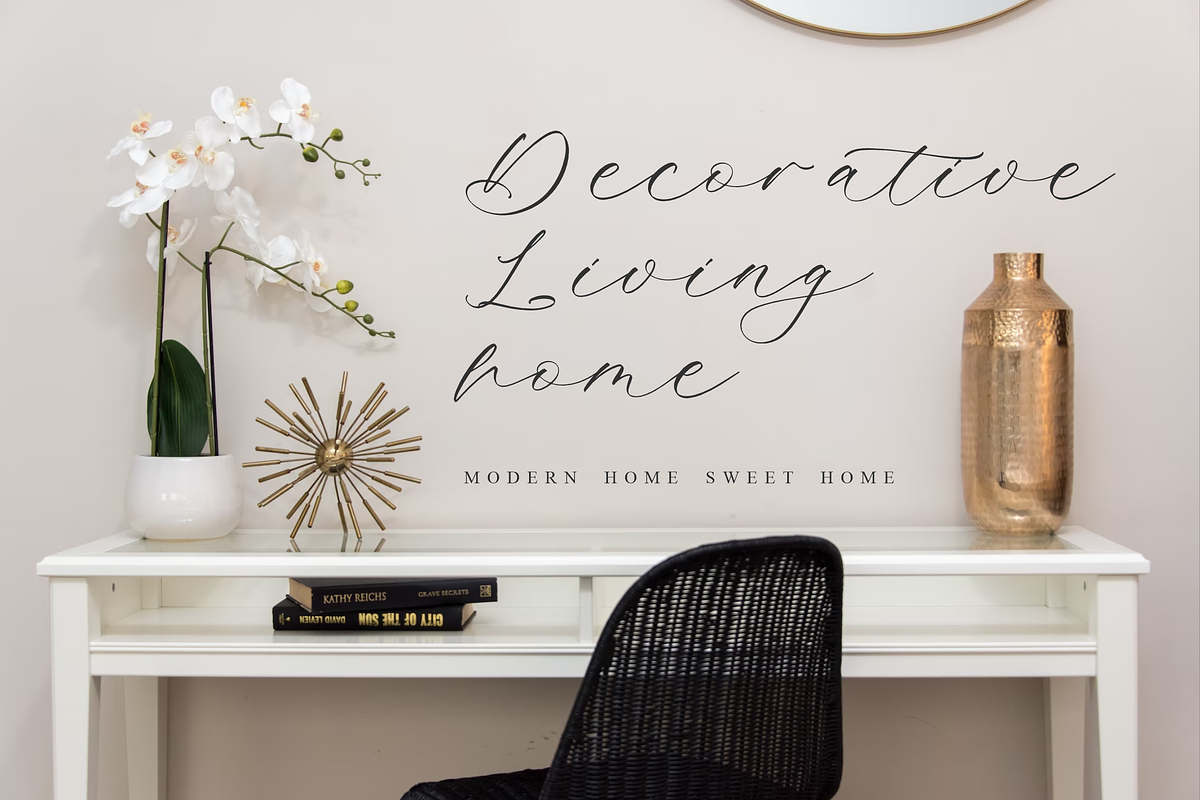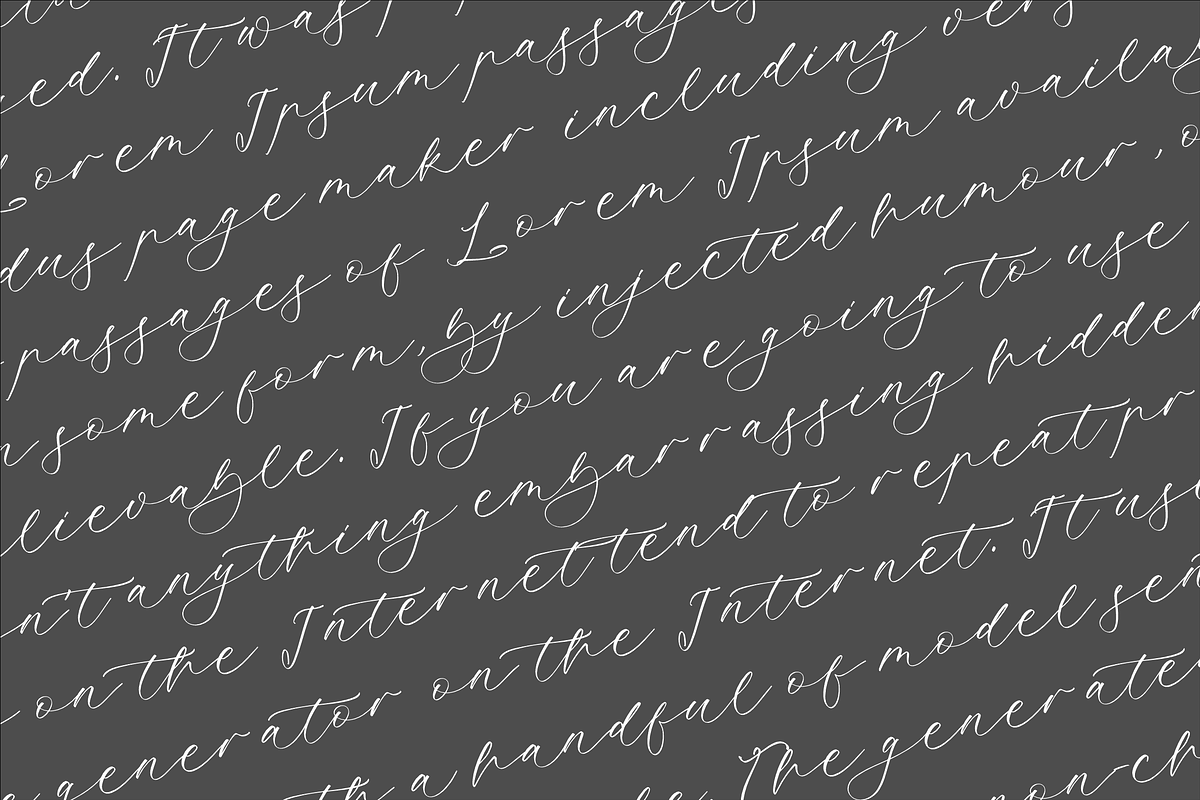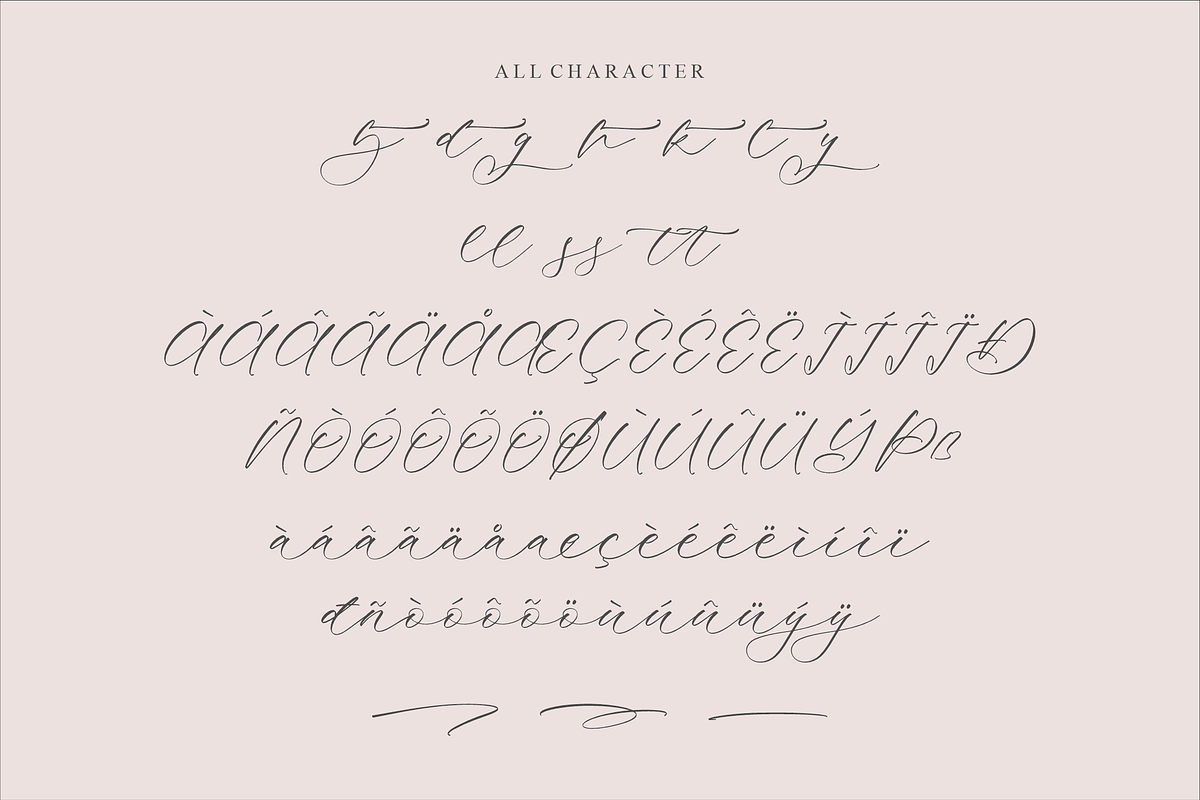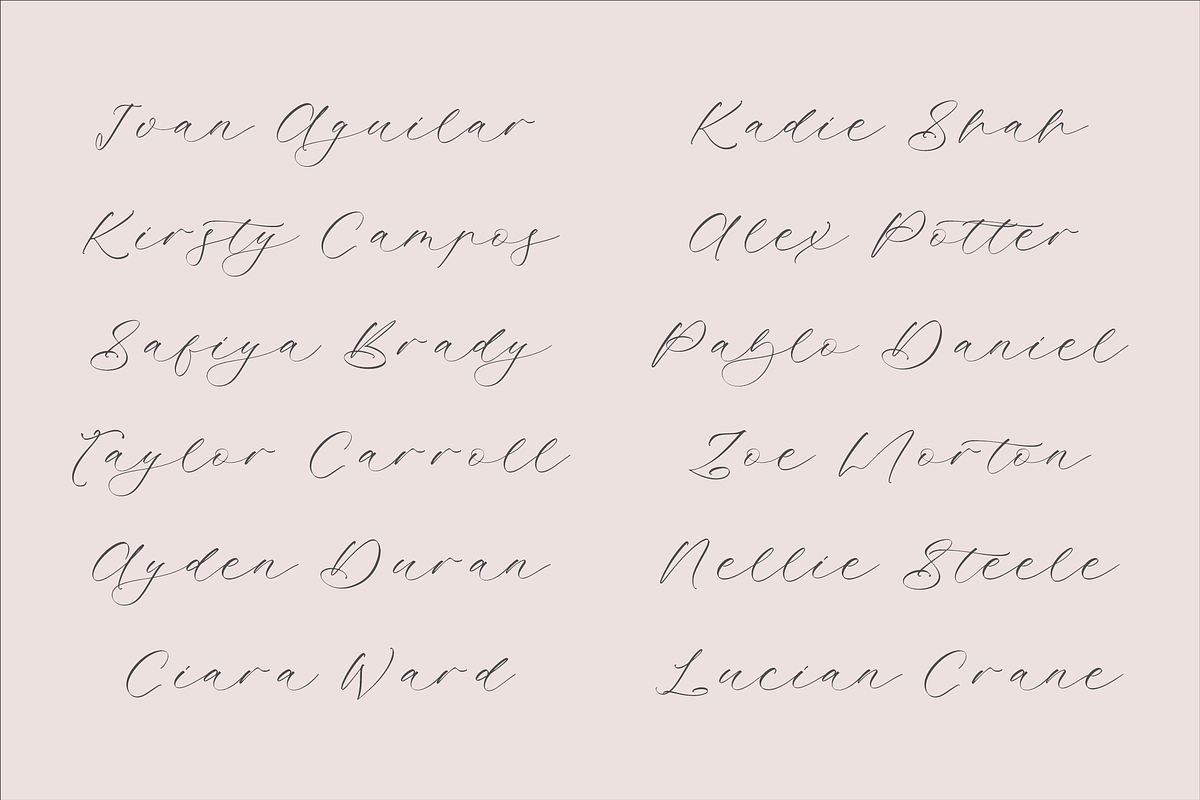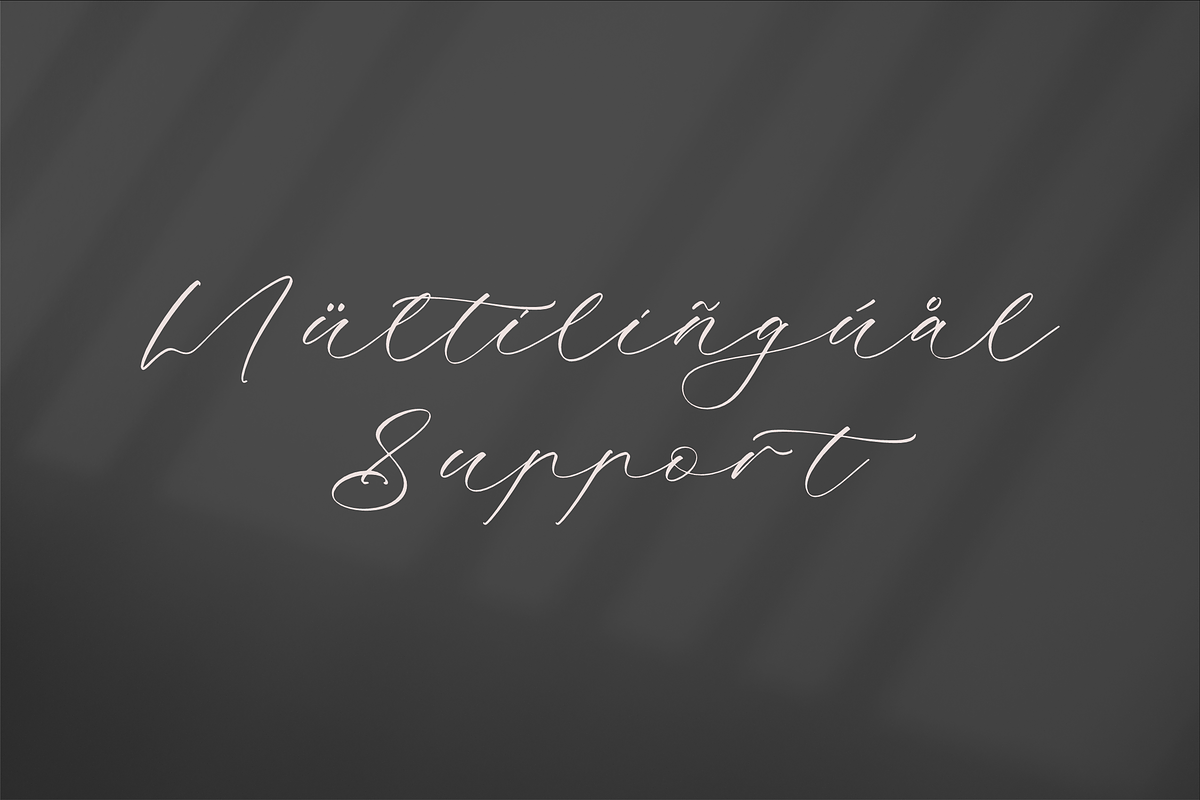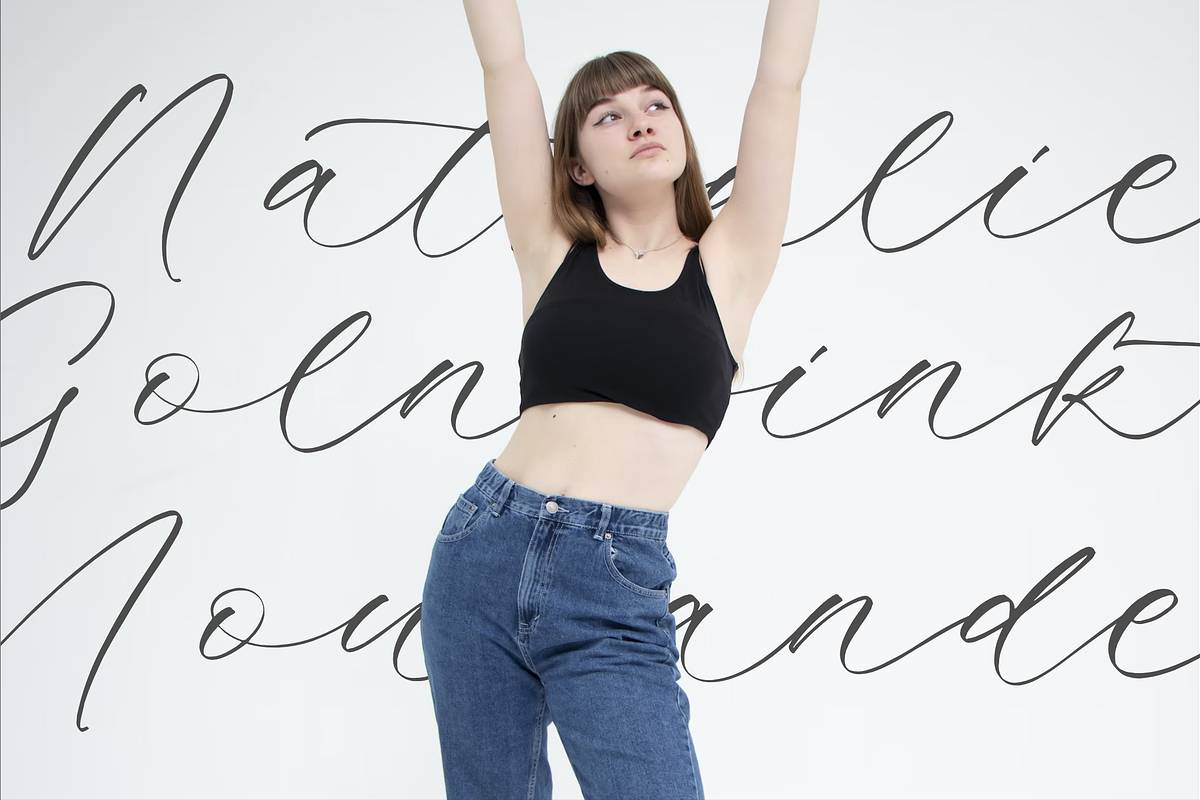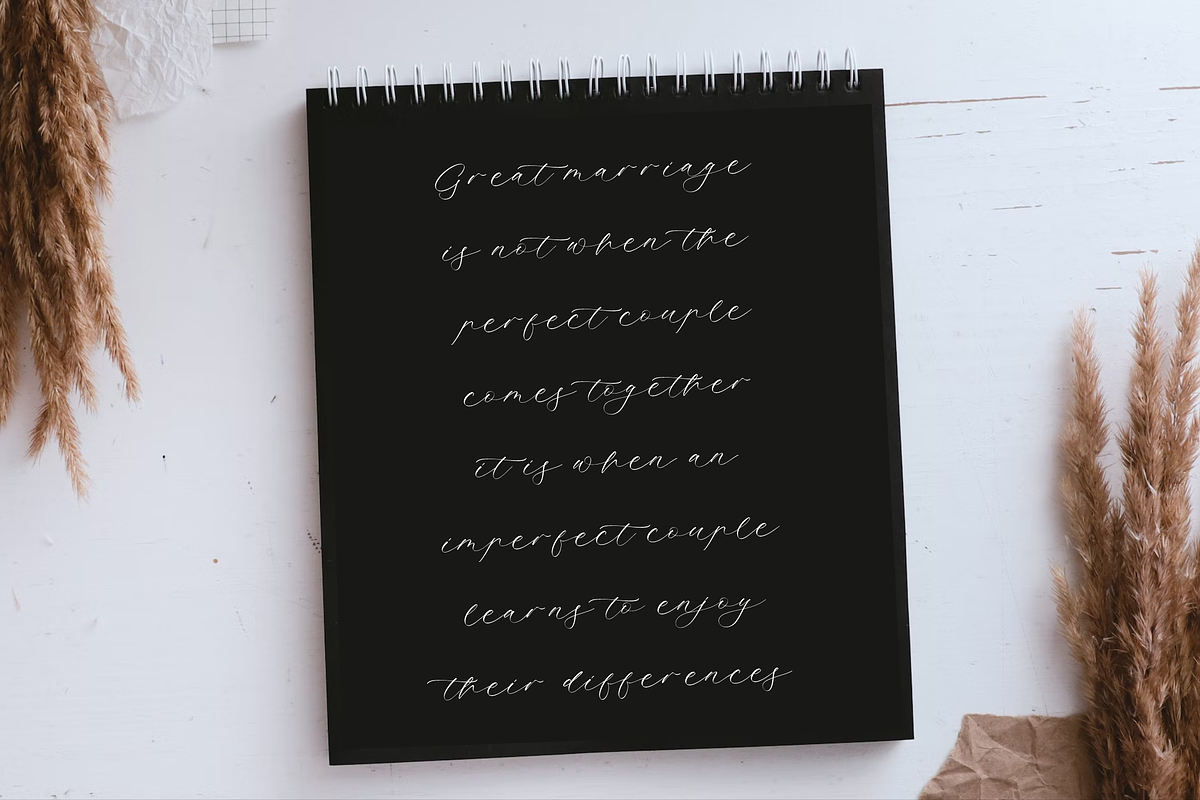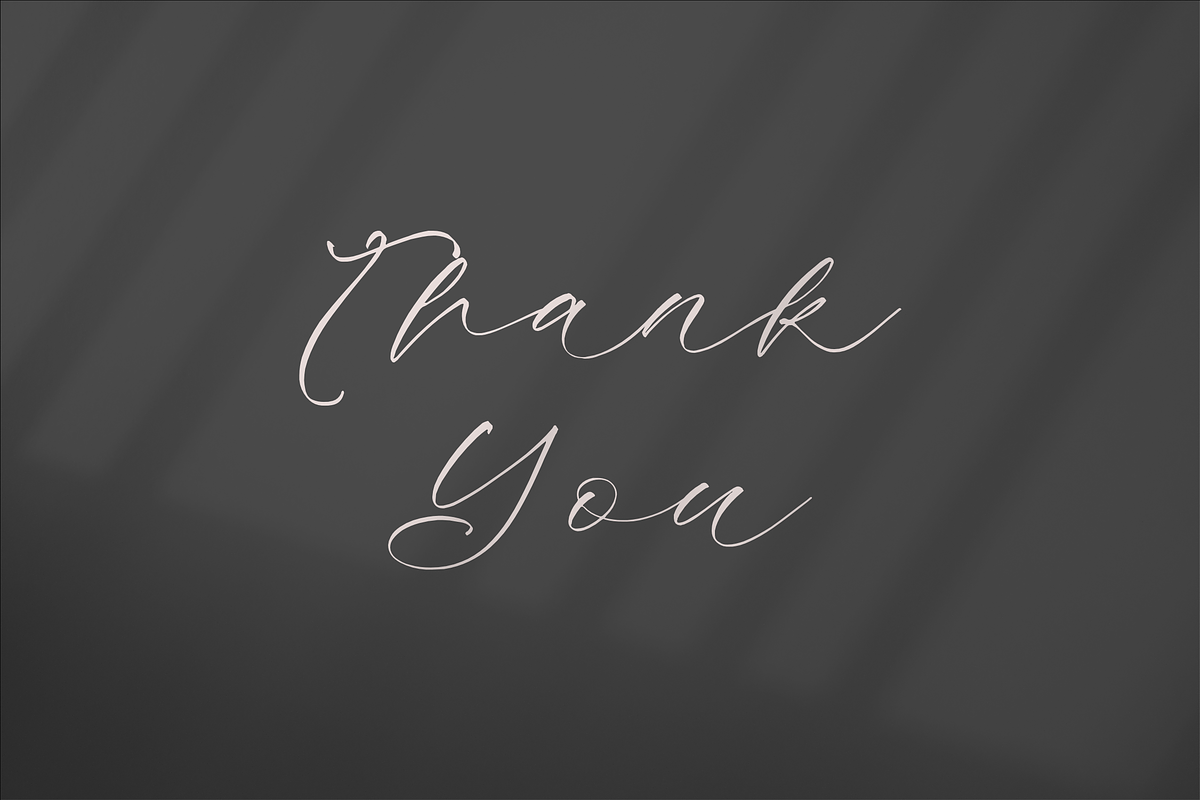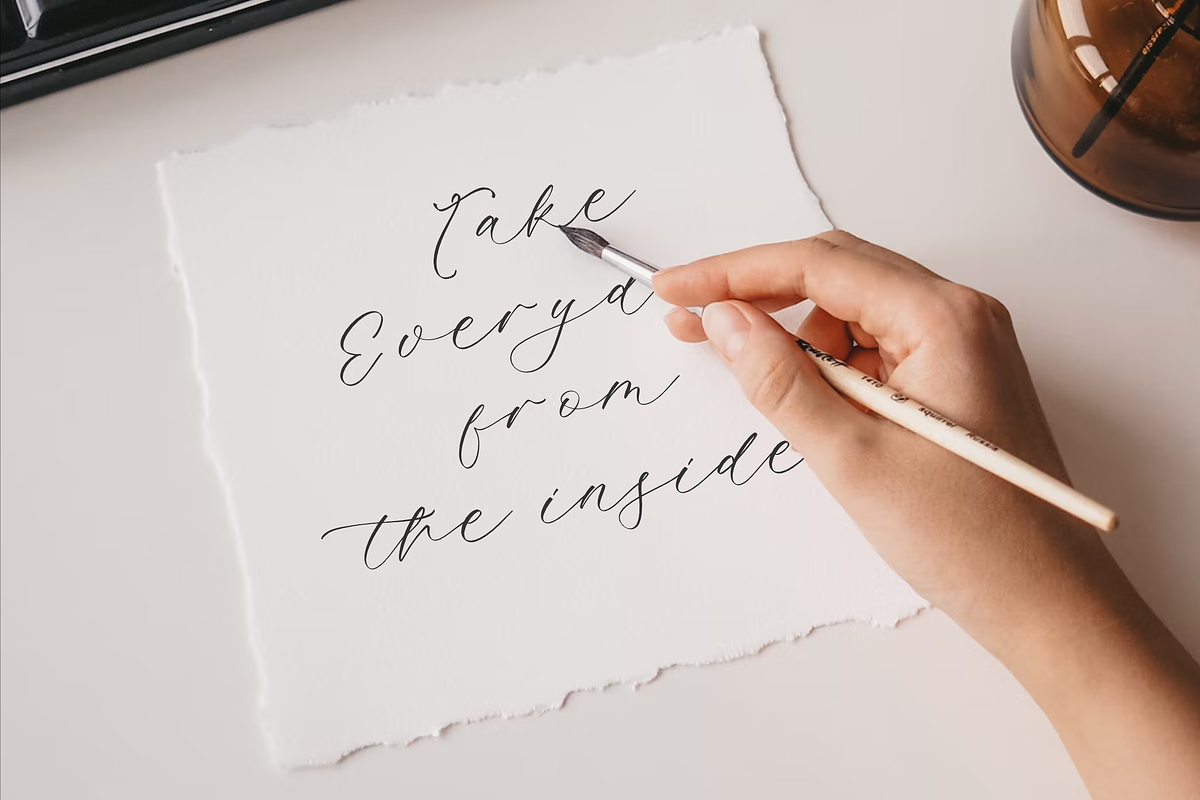
Montelia Hublot A Luxury Script Font
Proudly present Montelia Hublot - Luxury Script Font , created by Storytype, A luxury script that has own unique style & modern look. This typeface is perfect for an elegant & luxury logo, book or movie title design, fashion brand, magazine, clothes, lettering, quotes, and so much more.